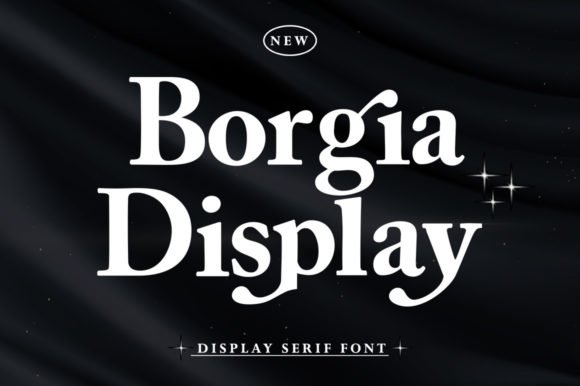
The Perfect Font for Making a Statement
Remember that moment when you’re working on a project, and you just can’t seem to find the right font to bring your vision to life? You’ve scrolled through countless options, and nothing seems quite right. Well, we’ve got the solution for you. Say hello to the Borgia Font, a stylish and assertive display font that’s sure to make a lasting impression.
The Borgia Font is more than just a pretty face – it’s a powerful tool for designers looking to add some extra oomph to their creations. With its PUA encoding, you’ll have access to all the glyphs and swashes you need to create truly unique and eye-catching designs. Whether you’re working on a logo, a poster, or a brochure, the Borgia Font is sure to be a valuable addition to your toolkit.
Borgia Font Key Features
- Font Family: Borgia is a serif font family that includes 6 styles: Borgia, Borgia Italic, Borgia Bold, Borgia Bold Italic, Borgia Condensed, and Borgia Condensed Italic.
- Character Set: Supports a wide range of languages, including Latin, Cyrillic, and Greek.
- Unique Characteristics: Borgia features a classic, elegant design with a touch of sophistication, making it suitable for formal and professional applications.
Borgia Font Review
As a designer, I’ve had the chance to work with the Borgia font, and I must say it’s an interesting choice. Here’s my honest review.
- Unique style: Borgia font has a distinct, ornate feel to it that sets it apart from other fonts. It’s perfect for designers who want to add some flair to their projects.
- Legibility: Despite its elaborate design, Borgia font is surprisingly legible, especially at larger font sizes.
- Font pairing: The font’s ornate feel makes it a great pairing option for more modern or minimalist fonts, adding a touch of elegance to any design.
- Readability at small sizes: Borgia font can become quite difficult to read at smaller font sizes, making it less suitable for body text or headlines that need to be easily readable.
- Lack of variation: While the font’s ornate feel is unique, it can feel a bit one-dimensional, with not enough variation in style to suit different design needs.
Overall, I think the Borgia font is a great choice for designers who want to add a touch of elegance and sophistication to their projects. While it may have some limitations, its unique style and legibility make it a great option for titles, headings, and other design elements where a bit of flair is needed.
The Borgia font is ideal for:
- Formal invitations and wedding stationery.
- Business cards and letterheads.
- Academic and professional resumes.
- Editorial and publishing projects.
Remember to use the Borgia font in moderation to avoid overwhelming your designs.